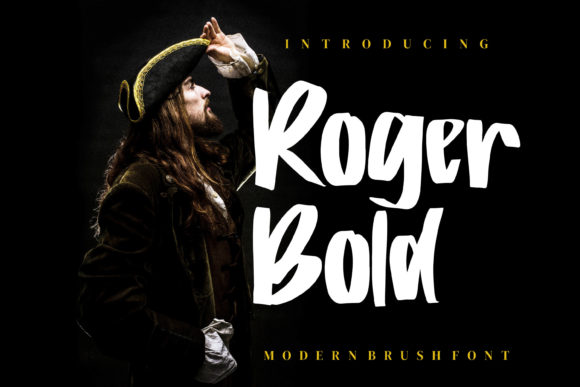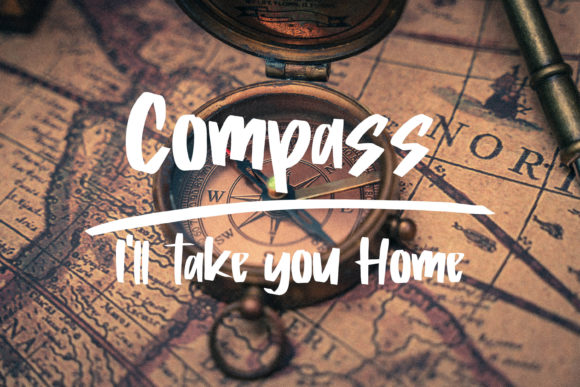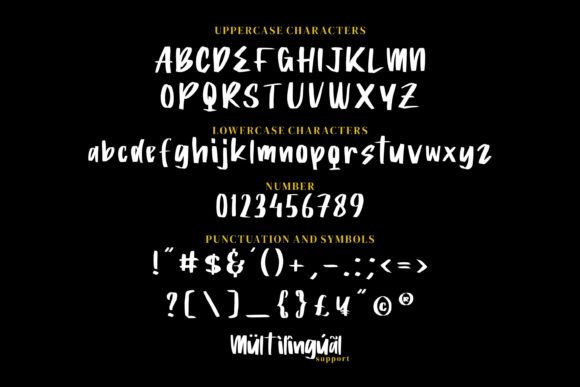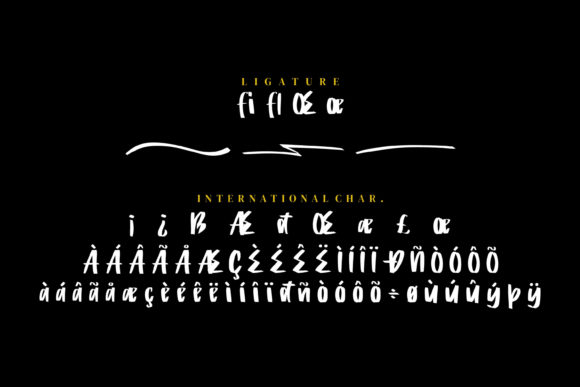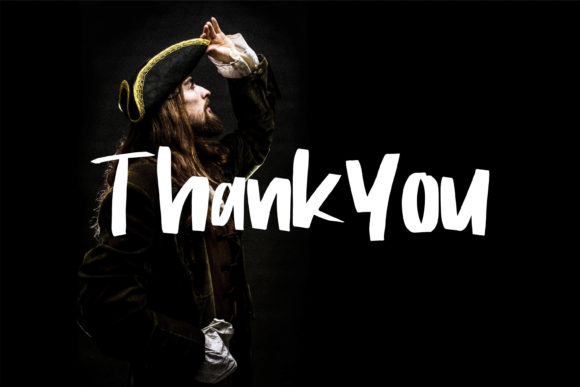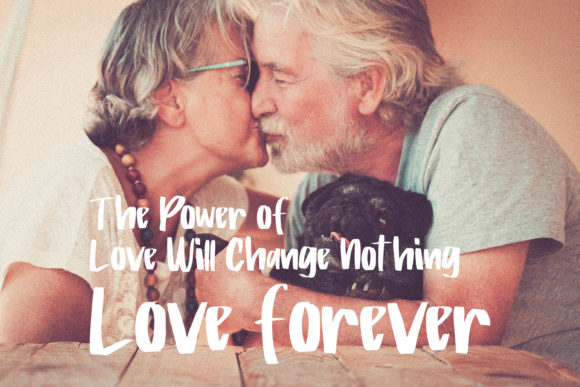
About Roger Bold Font
Roger Bold is a cool, relaxed and brushed handwritten font. It is defined by smooth curves and is perfect for fashion branding or editorial designs. Add it confidently to your projects, and you will love the results.